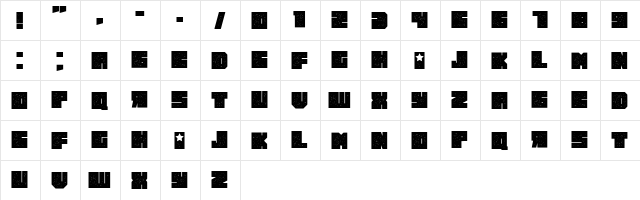
Russiano Grunged Regular
Design Context for Russiano Grunged Typeface
Russiano Grunged embraces imperfection — its rough, textured character adds raw authenticity to designs that want to feel lived-in and unconventional.
A strong fit for alternative music projects, graffiti-adjacent design, and anything that deliberately resists polish.
Pro Tip: Use Russiano Grunged at larger sizes where the texture and irregularity of each letterform can be clearly seen — it loses its character at small sizes.